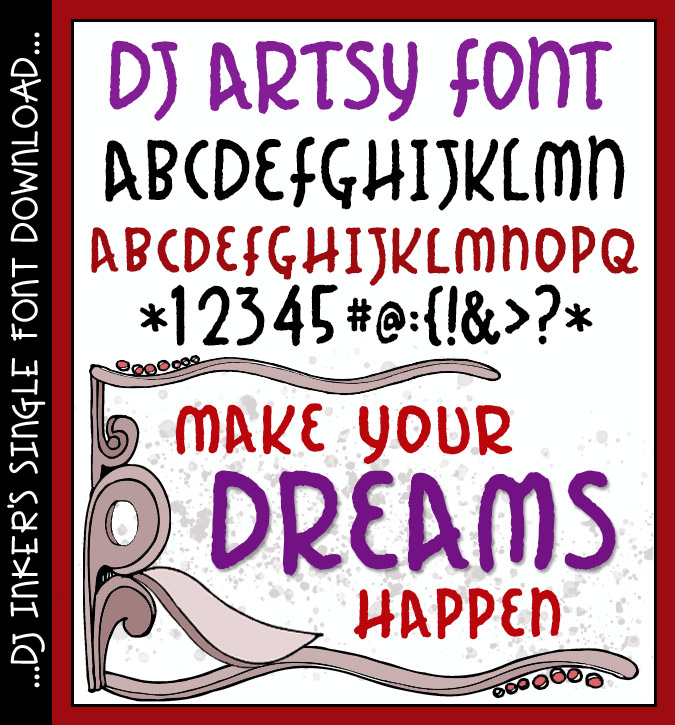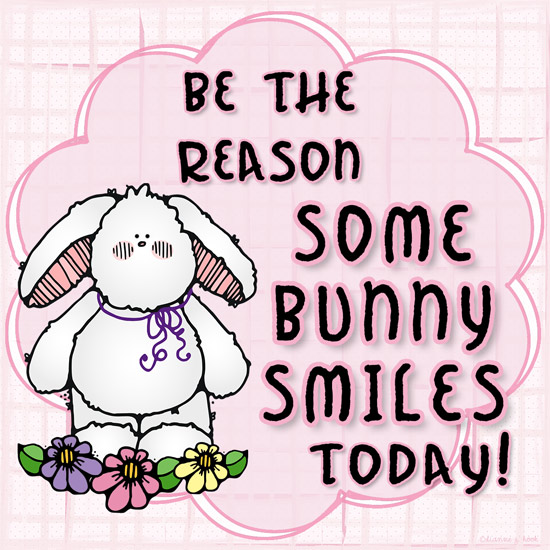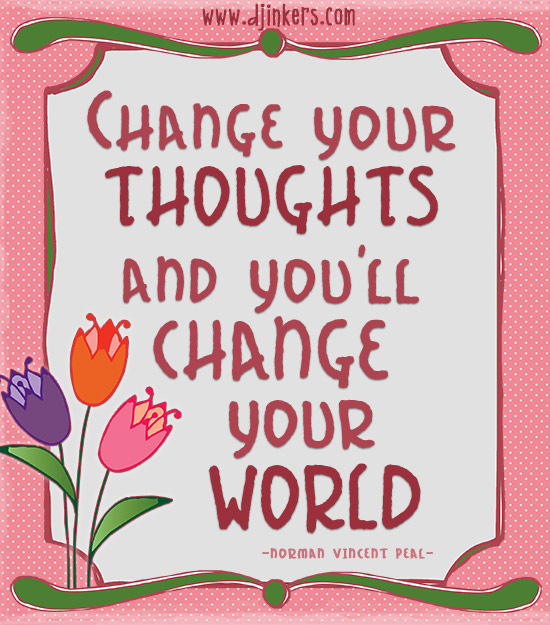
Give a bold, edgy finish to your projects with DJ Artsy. This hand drawn lettering will help your text stand-out with style. Try it out on posters & fliers, home crafts, scrapbooks, invitations and more. Make your creative dreams happen!